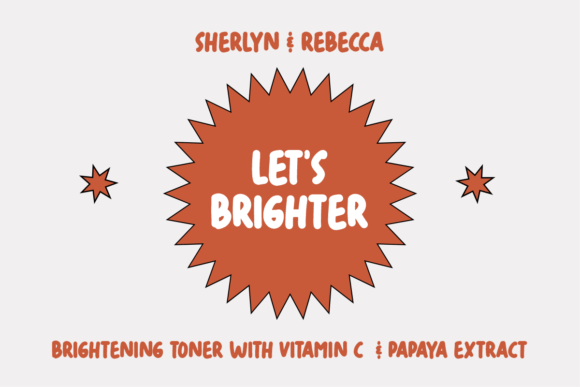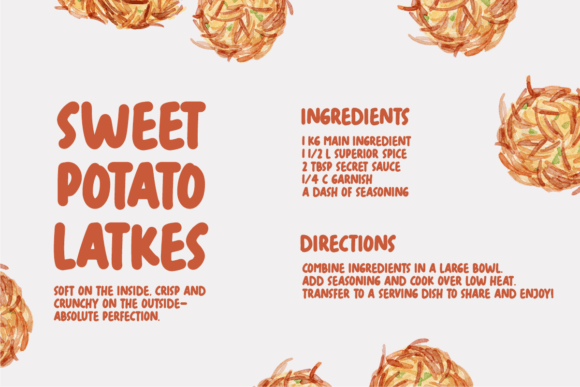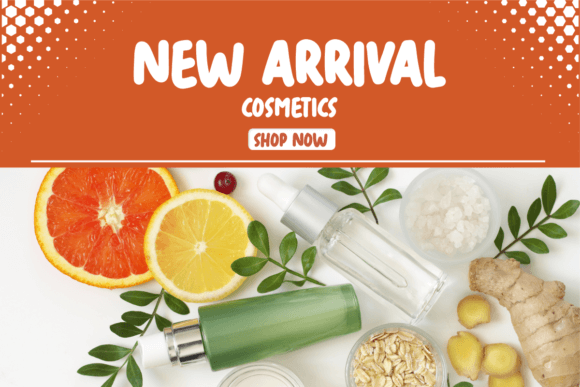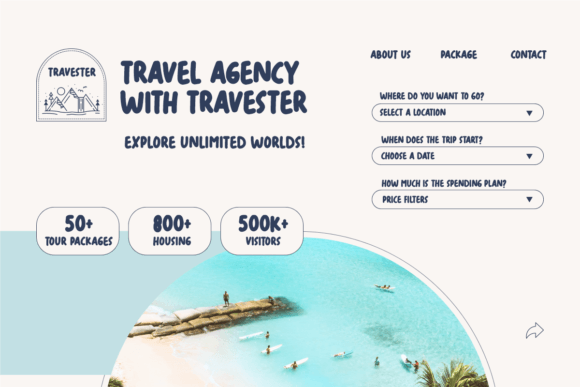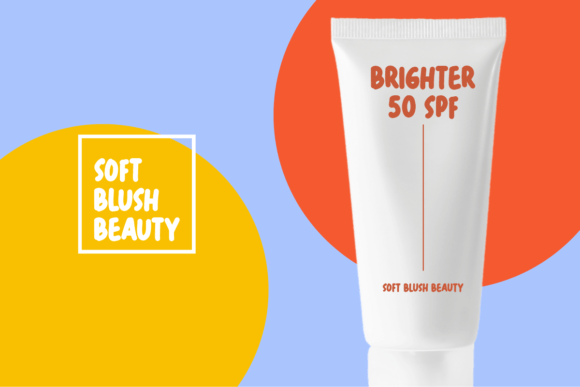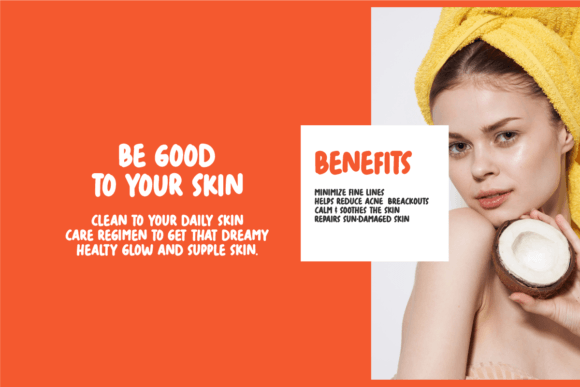
Introduction to Skintones Font
Skintones is a unique handwritten display font that captures beauty and diversity.
Each character is meticulously crafted to evoke the fluidity and natural flow of handwriting while maintaining a clean and polished appearance With its elegant yet playful style, this font is perfect for a variety of projects, including branding, packaging, social media graphics, and more.